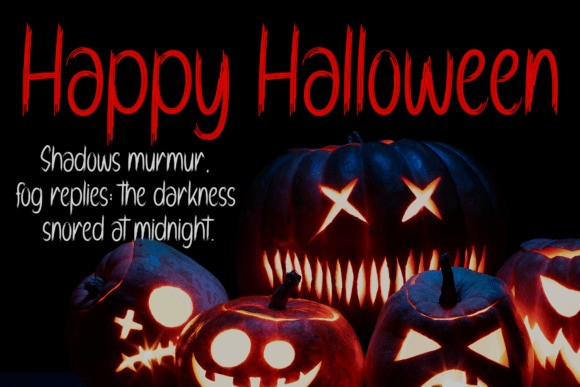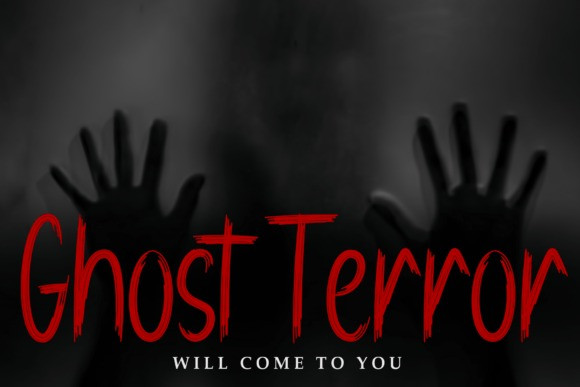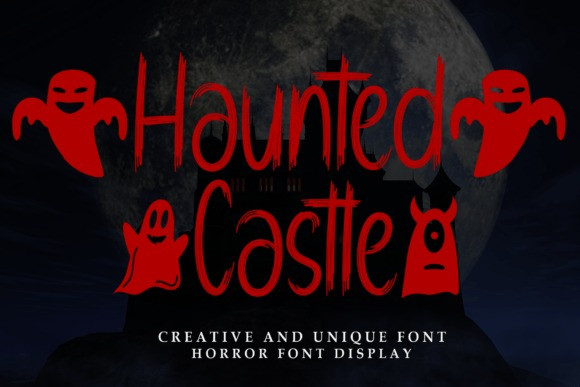
Haunted Castle Font
Haunted Castle Font, a spooky and mysterious script typeface that transports you to the eerie world of haunted castles and ghostly tales. With its twisted letterforms and gothic accents, this font adds an air of enchantment and darkness to your designs. Perfect for Halloween invitations, horror-themed projects, and chilling branding. Let Haunted Castle Font unleash a hauntingly beautiful atmosphere in your creative endeavors.